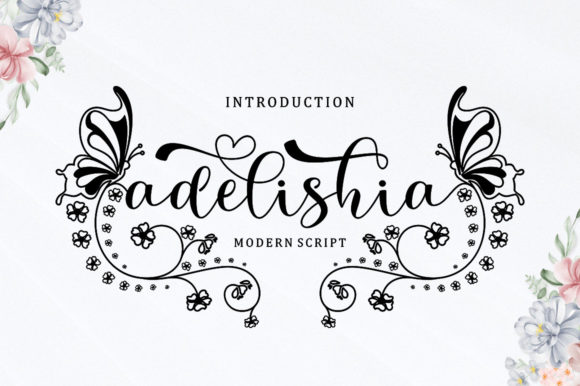
About Adelishia Script Font
Adelishia Script is a delicate and uniquely designed script font. It looks outstanding on wedding invitations, thank you cards, quotes, greeting cards, logos, business cards and every other design which needs a customized touch. Adelishia Script is PUA encoded which means you can access all of the glyphs and swashes with ease!